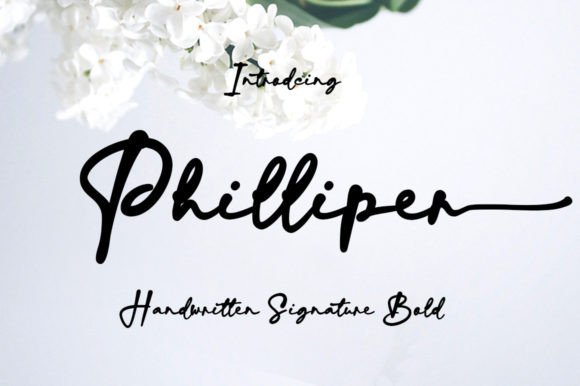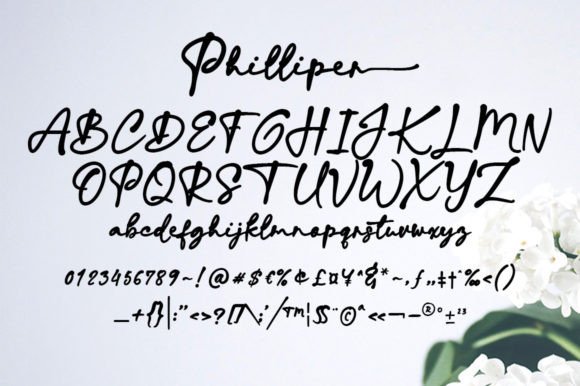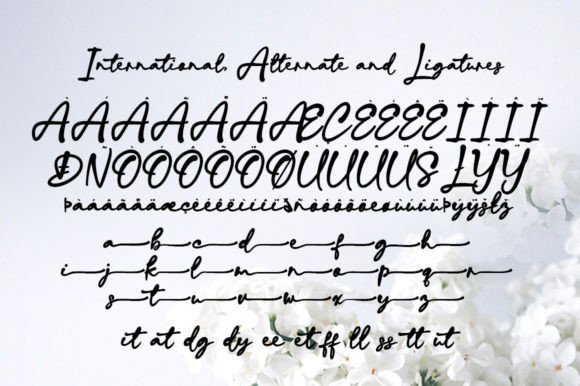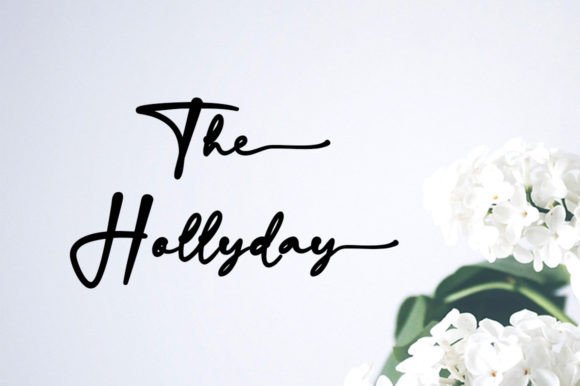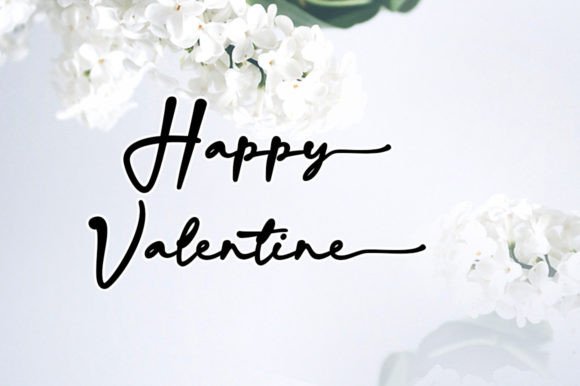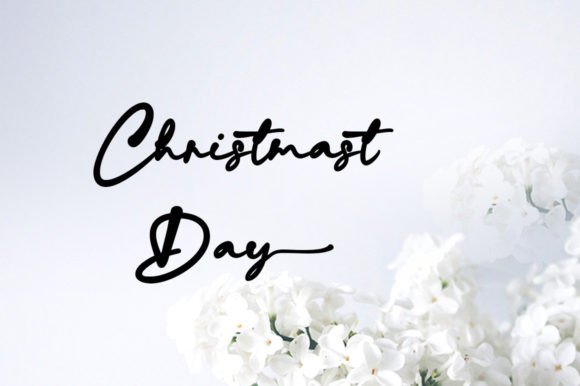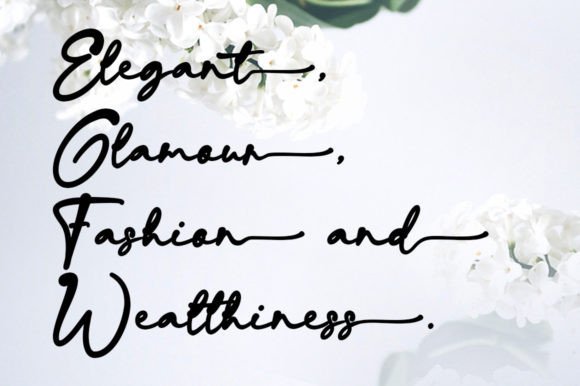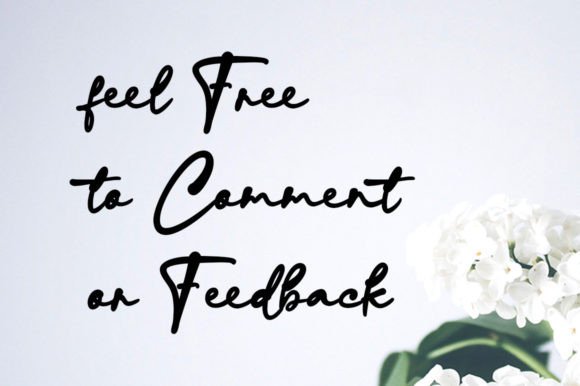
Philliper
About Philliper
Philliper is a signature bold script font, masterfully designed to become a true favorite. It maintains its modern classy influences while feeling contemporary and fresh. Fall in love with it and bring your projects to the highest levels!
Philliper is perfect for product packaging, branding project, megazine, social media, wedding, or just used to express words above the background.
Fonts featured : Uppercase, Lowercase, Numbers, Symbols, Accents, Stylistic, Swash, and Ligatures also Multilingual Support